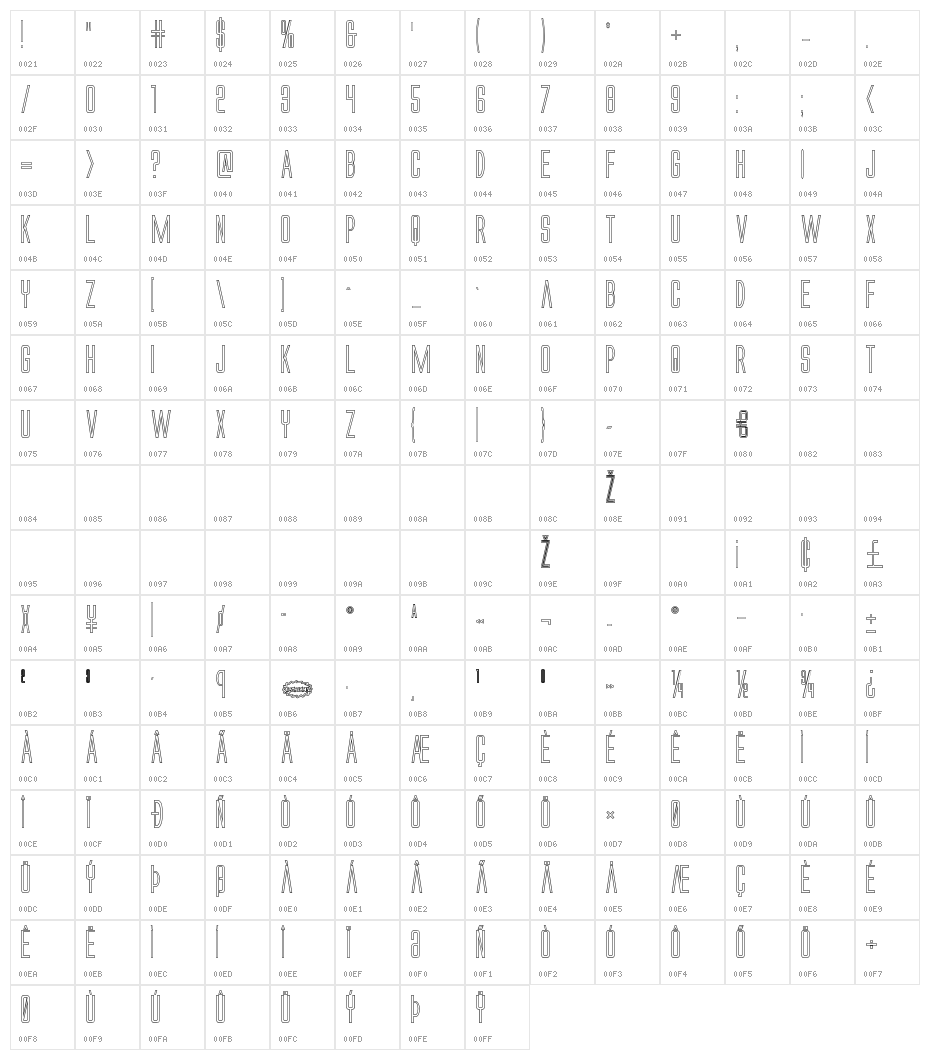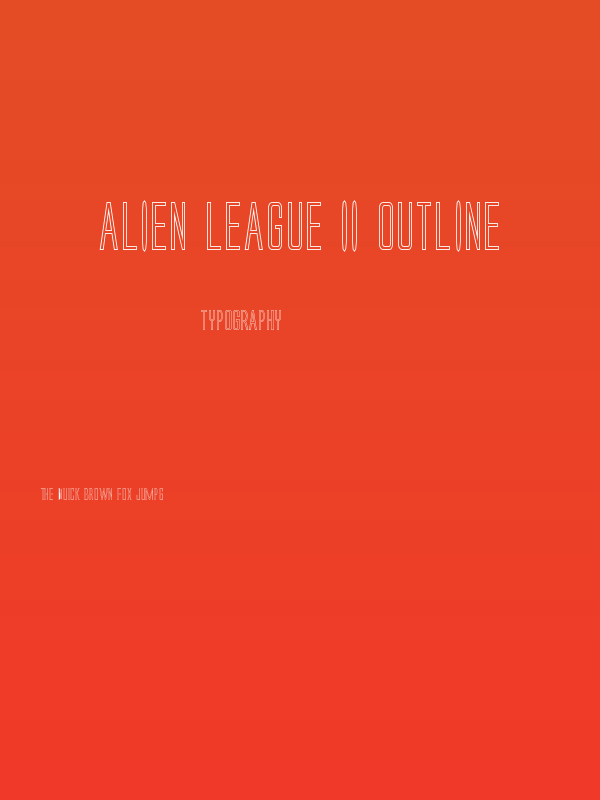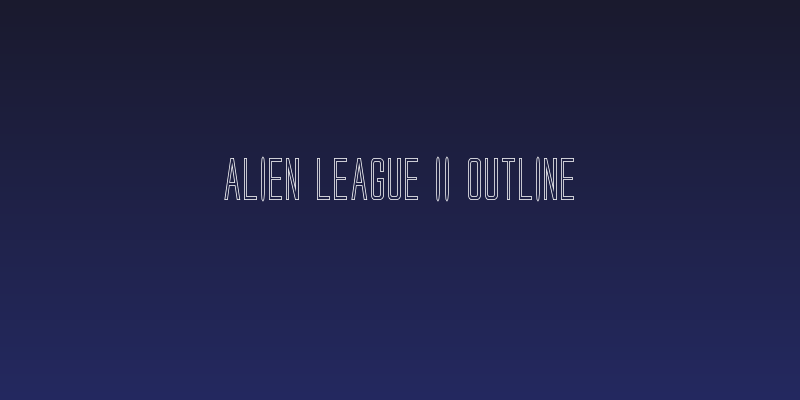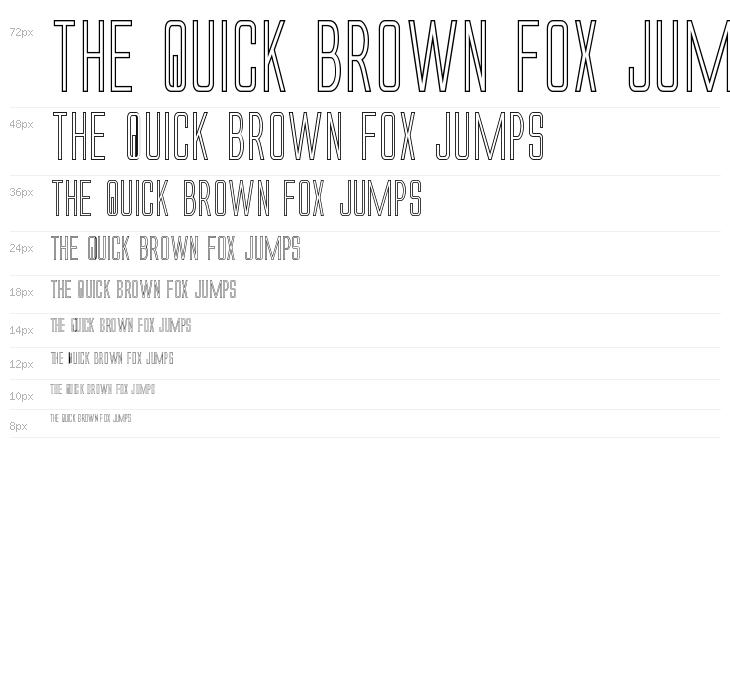
Alien League II Outline Font
Alien League II Outline Description
This font features a futuristic and sleek outline style, characterized by tall, narrow letters with a consistent stroke width. The uppercase and lowercase letters maintain a uniform height, giving a cohesive and structured appearance. The geometric design is evident in the sharp angles and straight lines, creating a modern and technical feel. The numerals and special characters follow the same design principles, ensuring visual harmony across all characters. This font is ideal for projects that require a contemporary and innovative look, such as technology branding or sci-fi themed designs.
| Proposed Projects | Ideal for technology branding, sci-fi themed designs, and modern posters. |